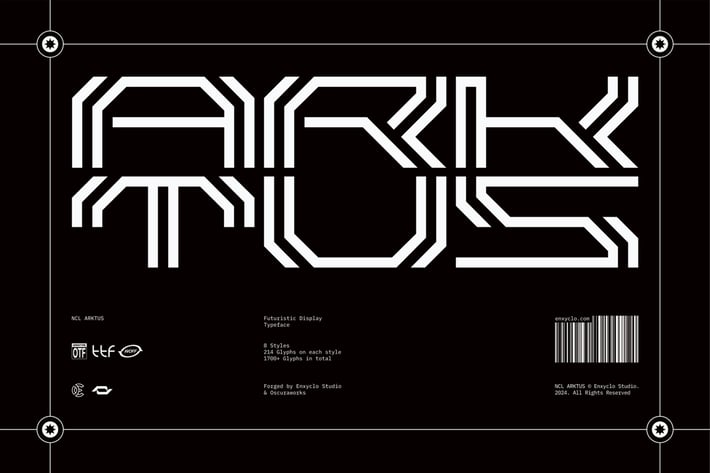
Arktus Font Family - Futuristic Display Font
Arktus Font Family is the ultimate futuristic y2k cyberpunk mecha typeface inspired by industrial and mecha-robotics. This stunning and powerful font cuts through the noise, bringing a bold industrial edge to your designs. With its sleek and futuristic design, this font is perfect for any futuristic or cyberpunk design, streetwear design, album artwork, posters, headlines, and logotypes. Add this font to your design toolkit today and unleash the cutting-edge style of this versatile font.
- NCL Arktus Font Family:
- NCL Arktus Base
- NCL Arktus Base Regular
- NCL Arktus Base Regular Outline
- NCL Arktus Base Oblique
- NCL Arktus Base Oblique Outline
- NCL Arktus Plex
- NCL Arktus Plex Regular
- NCL Arktus Plex Regular Outline
- NCL Arktus Plex Oblique
- NCL Arktus Plex Oblique Outline
- Contains 217 Glyphs for Each Style (1.726 Glyphs for Total)
- 11 Ligatures
- Uppercase & Lowercase
- Numeral, Punctuation & Symbols